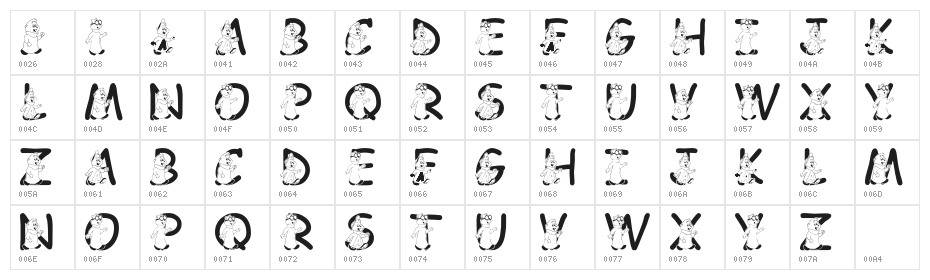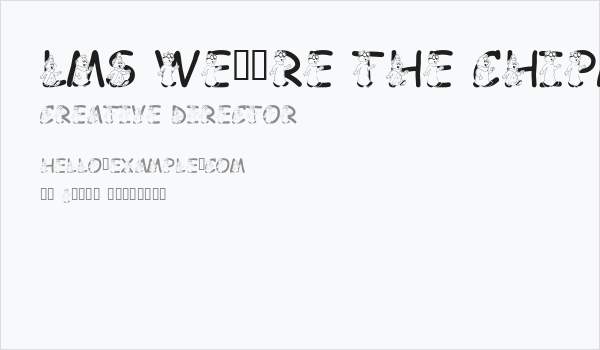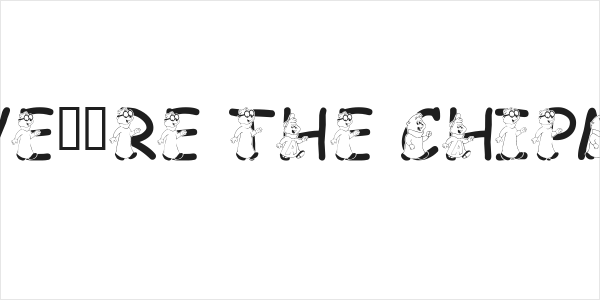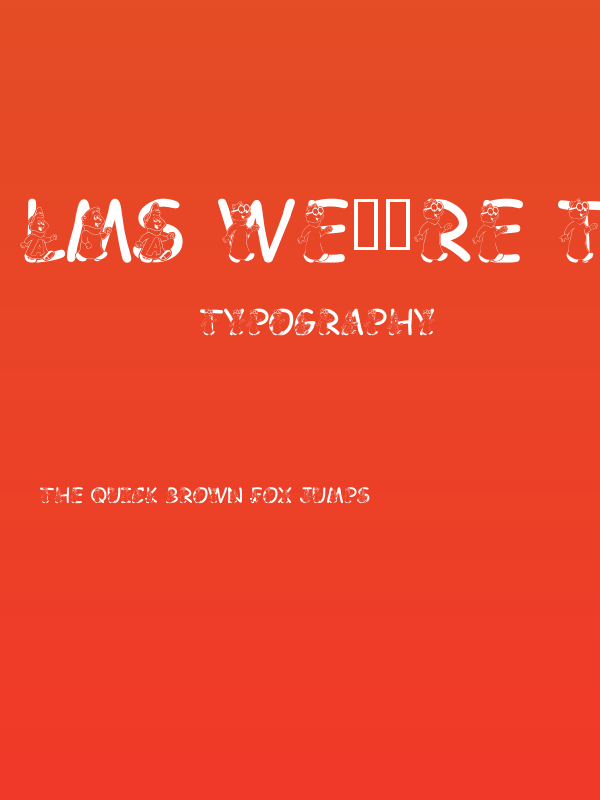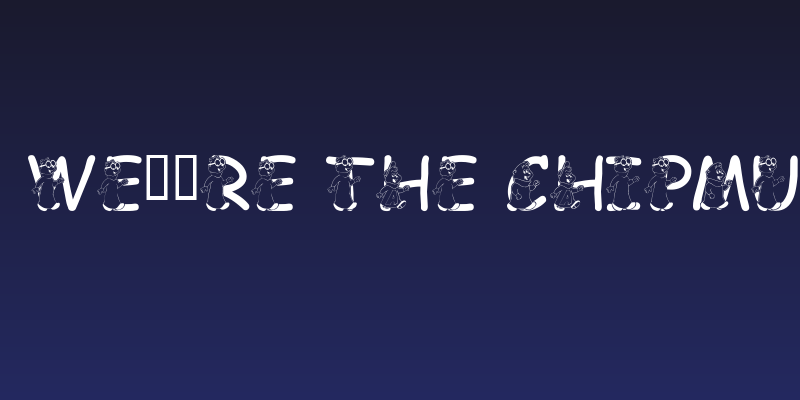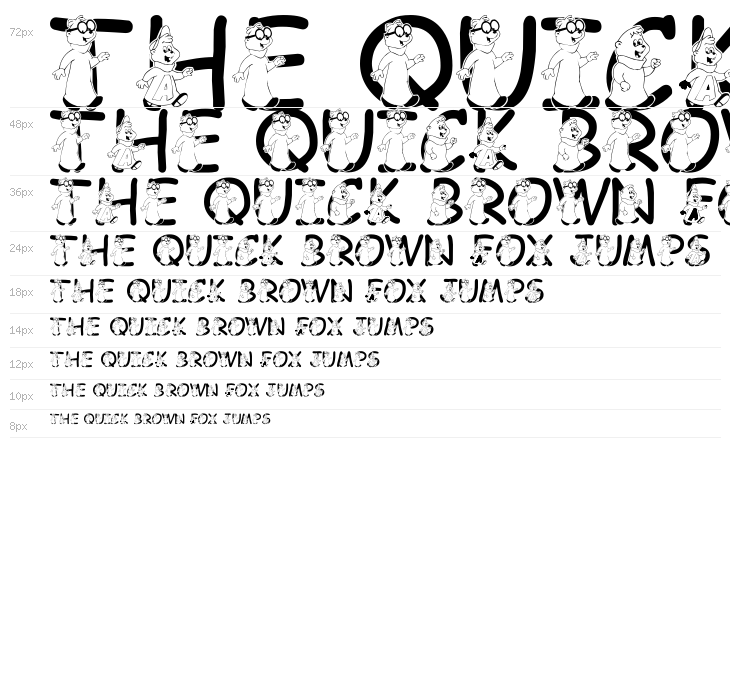
LMS We're The Chipmunks Font
LMS We're The Chipmunks Description
This playful and whimsical font features characters integrated into each letter, creating a lively and engaging design. The letters are bold and rounded, with cartoon figures adding a unique touch to each character. The style is reminiscent of animated characters, making it ideal for projects that require a fun and lighthearted aesthetic. The font maintains a consistent width and spacing, ensuring readability while keeping the playful theme intact. The contrast is medium, with the figures providing additional visual interest without overwhelming the letterforms.
| Proposed Projects | Ideal for children's books, animated movie titles, playful posters, and themed party invitations. |